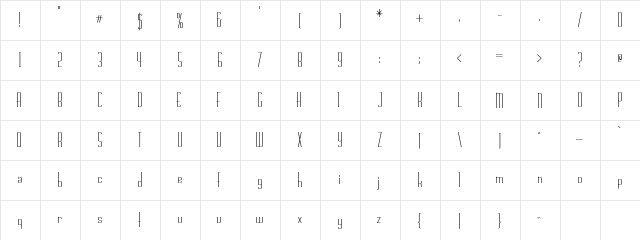
Calamaro Regular
Design Context for Calamaro Typeface
Calamaro takes a measured approach to typography — its balanced proportions and neutral character make it a reliable workhorse for both digital and print work.
Pro Tip: Use Calamaro in both headline and body roles to test its range before committing to a single application.